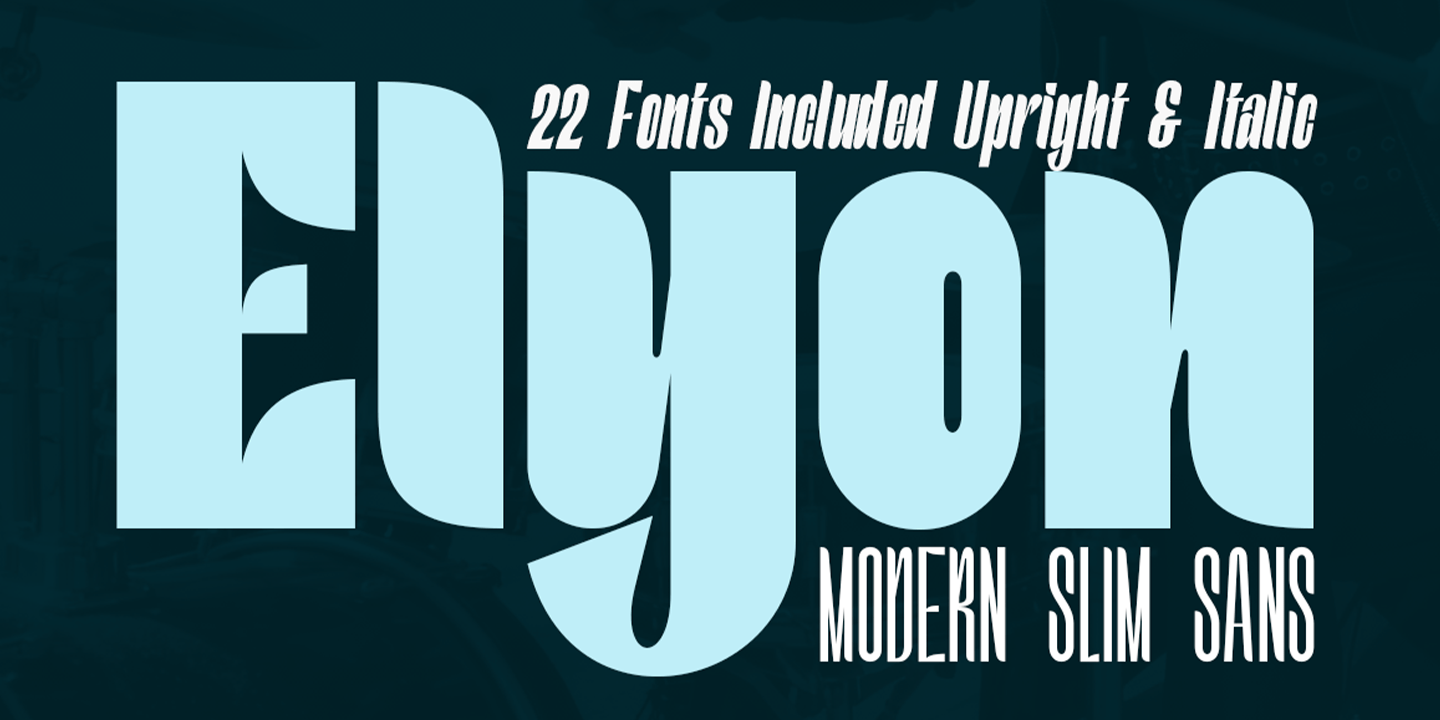
Elyon
Elyon — Modern Sans Serif Font Family
Elyon is a modern sans serif font family designed with clarity, balance, and versatility in mind. Clean letterforms, smooth curves, and precise proportions make Elyon a reliable choice for both digital and print applications.
With a full range of 22 styles—11 uprights and 11 italics, from Thin to Extra Black—Elyon offers exceptional flexibility for designers who need consistency across branding systems, editorial layouts, and user interfaces.
The Elyon font family includes 232 glyphs.